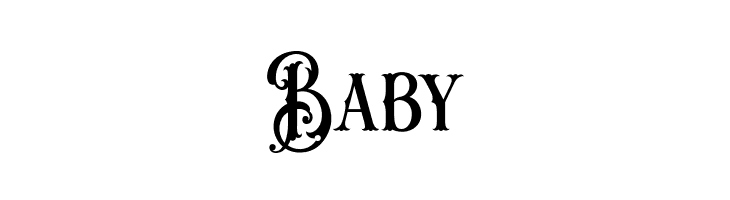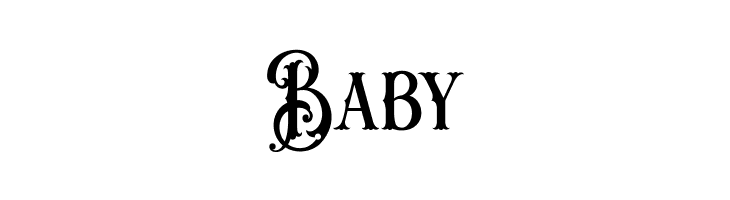
An ornate, decorative font with intricate swirls and high contrast, perfect for artistic projects.
An ornate and decorative font with intricate swirls and embellishments.